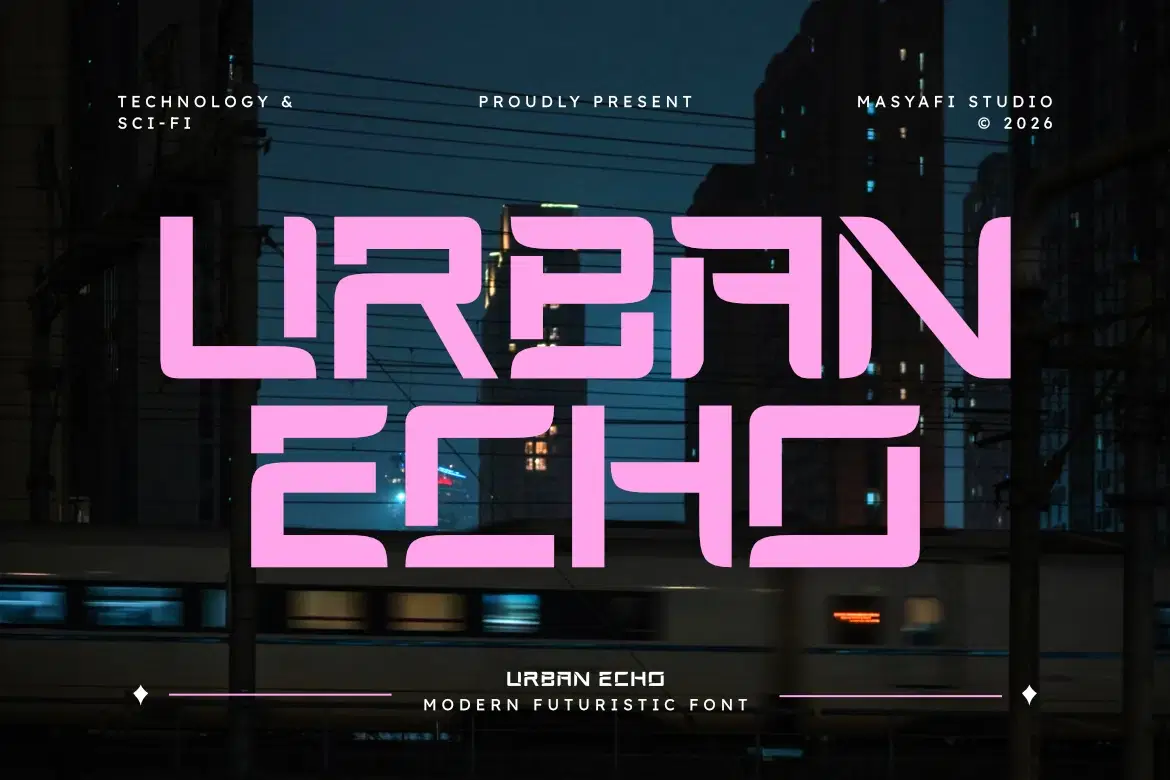
Urban Echo - Modern Futuristic Tech Font
Urban Echo is a cutting-edge futuristic font designed to capture the vibrant, fast-paced energy of the modern cityscape. With its unique geometric cuts and stencil-inspired architecture, this typeface strikes a perfect balance between high-tech precision and urban grit.
Ideal for technology branding, sci-fi movie titles, gaming interfaces, and progressive streetwear designs, Urban Echo ensures a bold and innovative presence. Its clean yet complex letterforms make it a standout choice for headlines and logos that need a forward-thinking aesthetic.
Bold & Modern Futuristic Stencil style.
Clean geometric design for high readability.
Perfect for technology, sci-fi, and urban-themed projects.